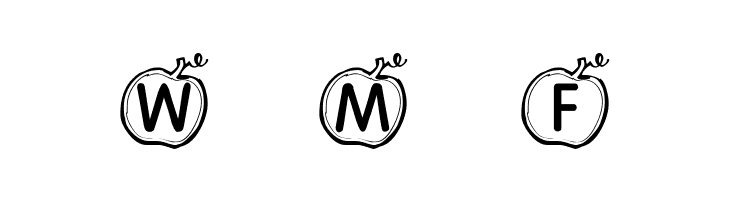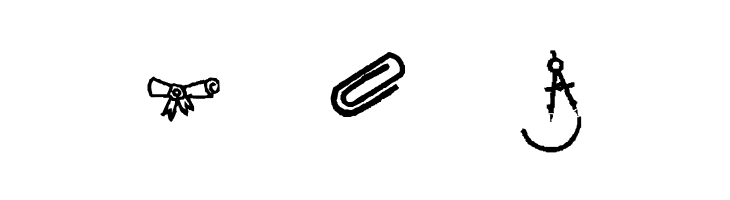
A bold, playful handwritten font with smooth, flowing lines and a casual style.
Anatomy-themed font with characters resembling human organs and body parts.
Icon-based font featuring printing and production symbols.
A playful font with letters inside apple shapes, ideal for fun and educational projects.
A playful, childlike handwritten font with irregular, rounded characters.
A collection of graduation-themed illustrations in a playful, cartoonish style.
A playful dingbat font with school-themed icons.
A playful, school-themed decorative font with bold, blocky letters.
A bold, handwritten font with fluid strokes and a casual, energetic style.